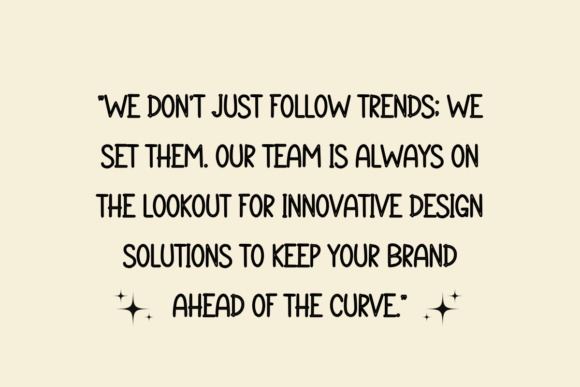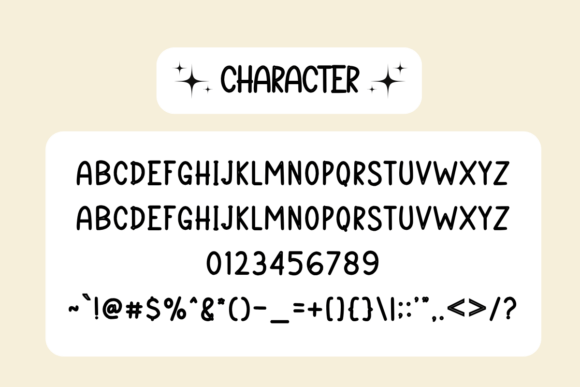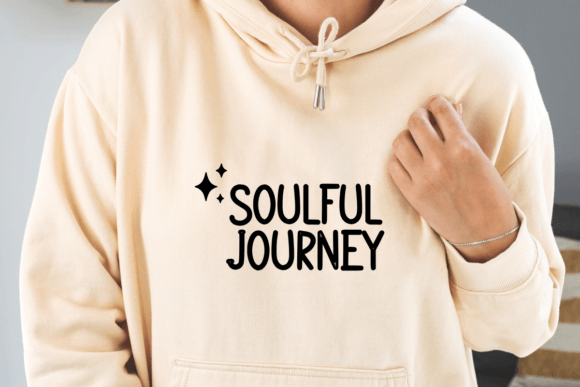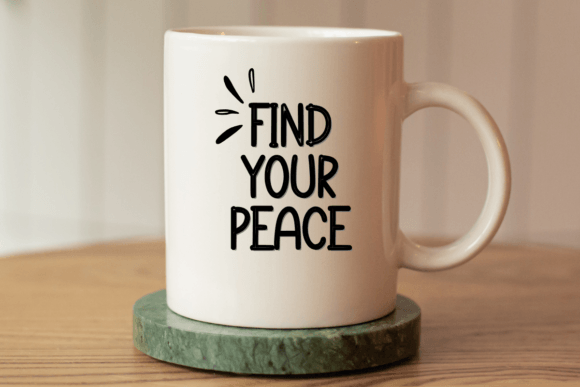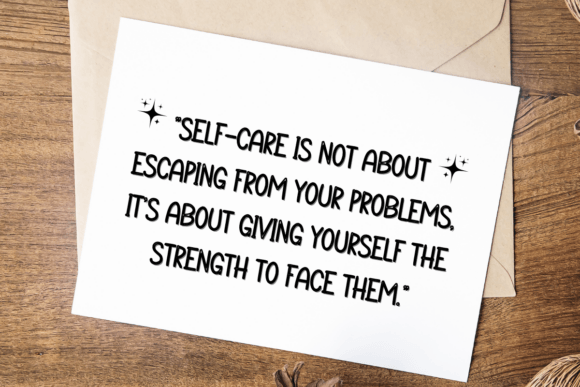
Introducing Design Desk Font: Whimsical Handwritten Sans Serif for Creative Expression
Are you on the lookout for a font that adds a personal touch to your written content? Look no further than Design Desk, a delightfully whimsical handwritten sans serif font. This charming font is perfect for designers, crafters, and writers who want to infuse their work with a sense of intimacy and creativity. In this article, we’ll explore the features and benefits of Design Desk, and how it can elevate your designs, notes, and printables.
The Charm of Design Desk
Design Desk is a handwritten sans serif font that exudes a sense of playfulness and elegance. Its unique character set makes it an excellent choice for a variety of mediums, including memos, diaries, notes, planners, calendars, and to-do lists. With Design Desk, you can add a touch of personality to your written content, making it more engaging and enjoyable to read.
Ideal for Creative Projects
Design Desk is an excellent choice for crafters and designers who want to inject creativity into their projects. It’s perfect for:
- Teacher resources: Create engaging and interactive lesson plans, worksheets, and activity sheets with Design Desk.
- Greeting cards and invitations: Add a personal touch to your cards and invites with this charming font.
- Scrapbooking: Use Design Desk to create beautiful and memorable scrapbook pages.
- Printables: Elevate your printables, such as daily, weekly, and monthly planners, with the elegant versatility of Design Desk.
Suitable for Low Content Applications
Design Desk is also suitable for low content applications, making it an excellent choice for:
- Journal templates: Create beautiful and inspiring journal templates with Design Desk.
- KDP interiors and templates: Use Design Desk to create visually appealing interiors and templates for your Kindle Direct Publishing (KDP) projects.
- Workbook, notebook paper, and paper sheets: Add a touch of elegance to your workbook, notebook paper, and paper sheets with Design Desk.
Benefits of Using Design Desk
So, why choose Design Desk for your creative projects? Here are just a few benefits:
- Personal touch: Design Desk adds a personal touch to your written content, making it more engaging and enjoyable to read.
- Creativity: This font inspires creativity and imagination, making it perfect for crafters, designers, and writers.
- Versatility: Design Desk is versatile and can be used for a variety of mediums and projects.
- Elegance: This font exudes elegance and sophistication, making it perfect for projects that require a touch of refinement.
Tips for Using Design Desk
Here are a few tips for using Design Desk effectively:
- Experiment with font sizes: Design Desk looks great in a variety of font sizes, so don’t be afraid to experiment and find the perfect size for your project.
- Pair with other fonts: Design Desk pairs well with other fonts, so try combining it with other fonts to create a unique and interesting look.
- Use for headings and body text: Design Desk is suitable for both headings and body text, making it a great choice for projects that require a consistent look.
Design Desk is a charming and versatile handwritten sans serif font that’s perfect for designers, crafters, and writers. With its unique character set and elegant flow, it’s an excellent choice for a variety of mediums and projects. Whether you’re creating teacher resources, greeting cards, scrapbook pages, or printables, Design Desk is sure to add a touch of personality and creativity to your work. So why not give Design Desk a try and experience the magic of this beautiful font for yourself?